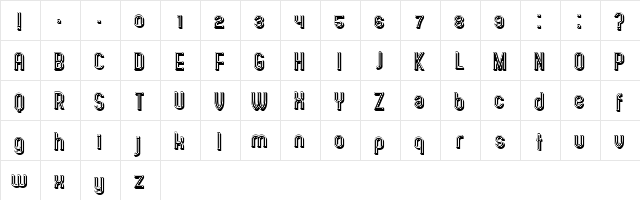
Olympus Regular
Design Context for Olympus Typeface
Olympus is a composed and adaptable typeface that performs quietly and consistently across a wide range of design contexts.